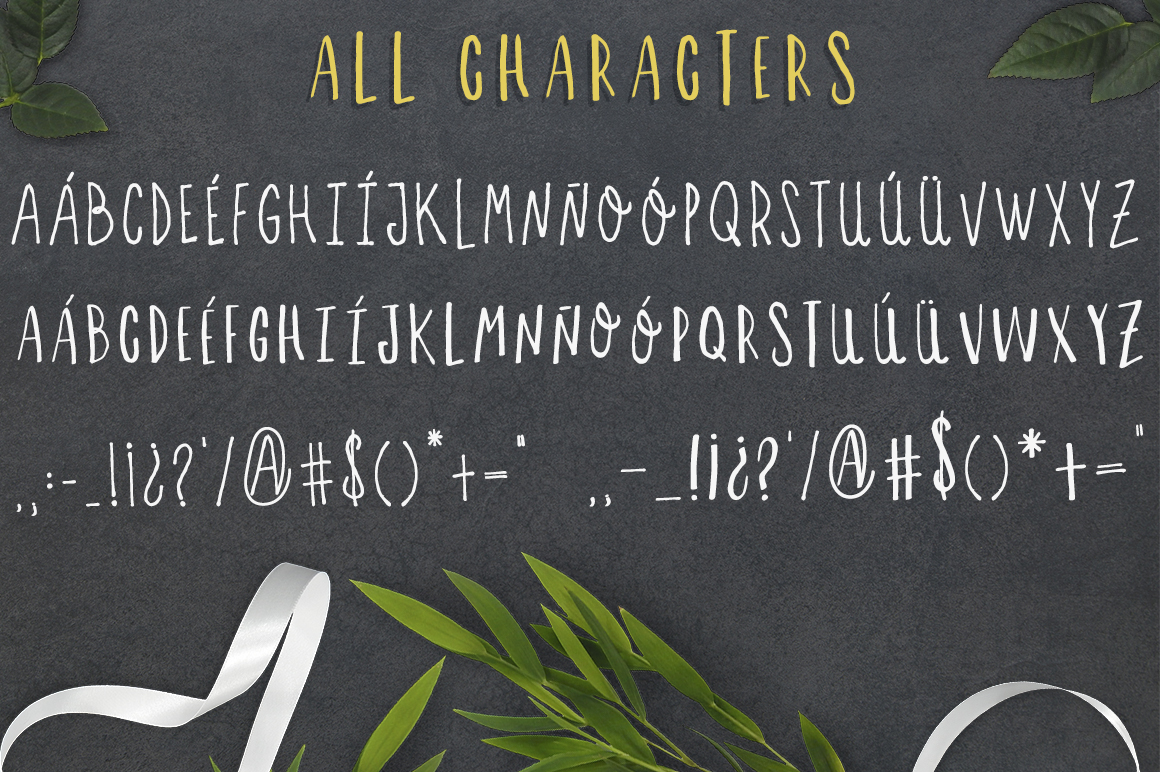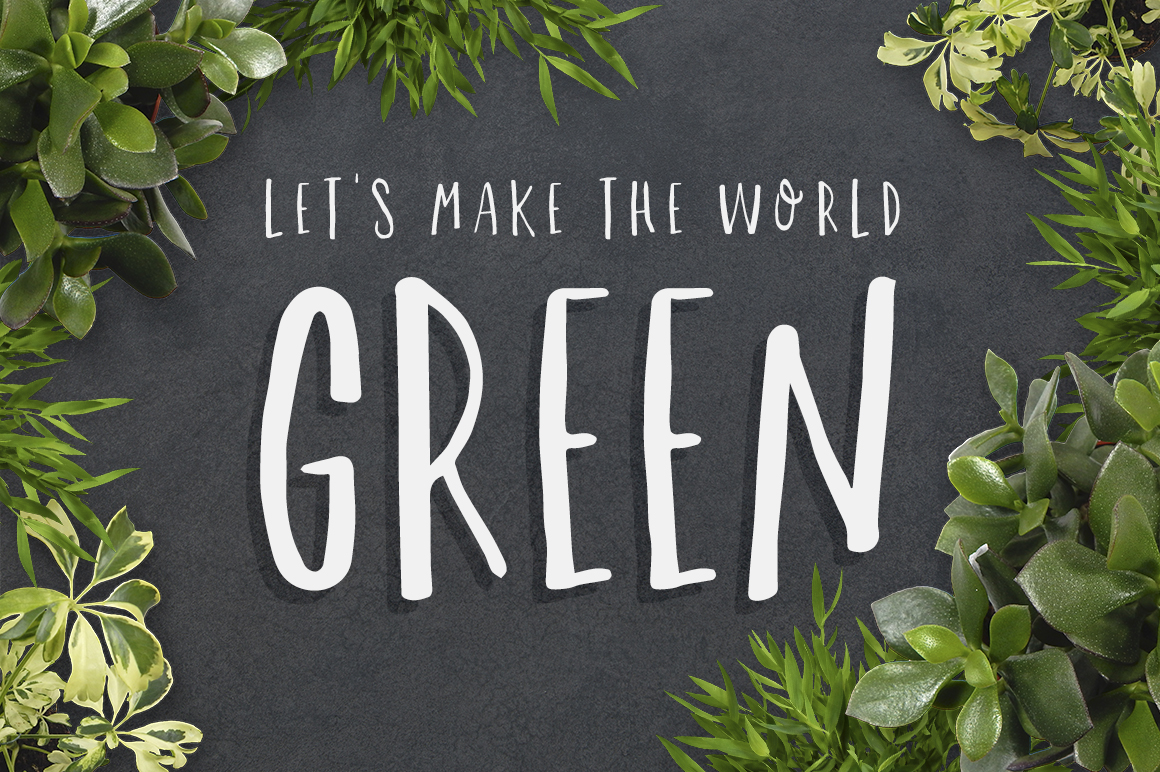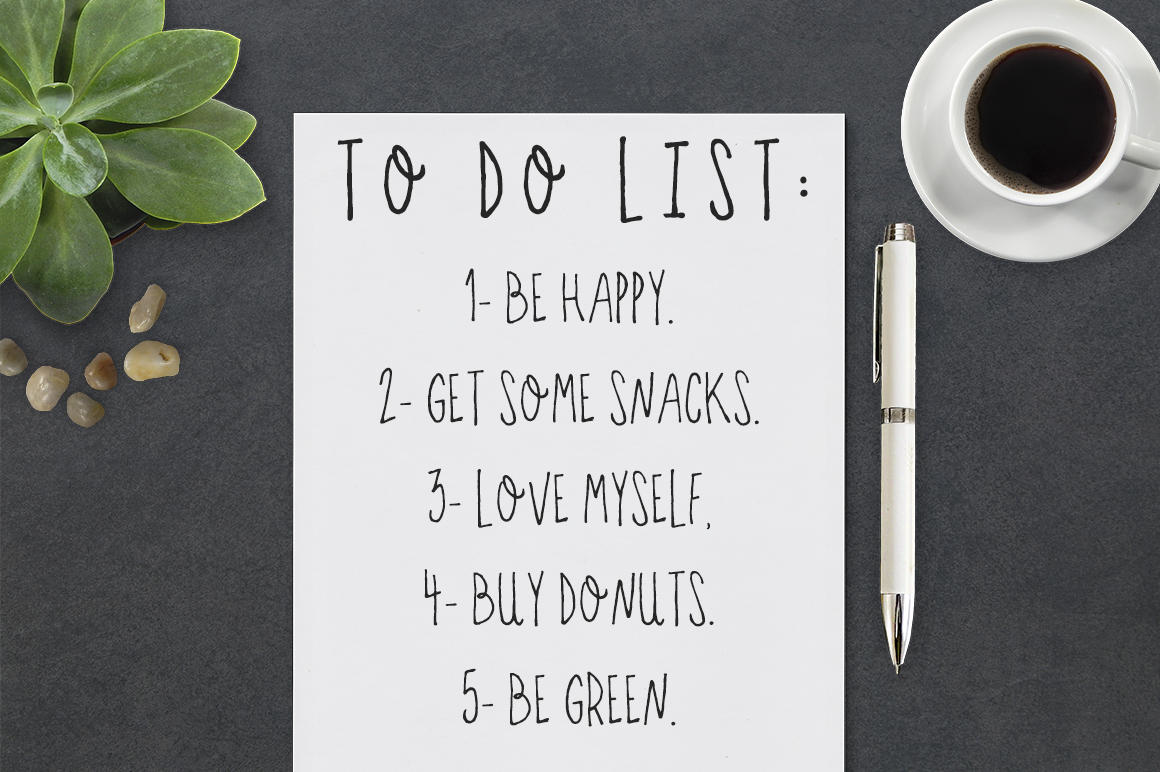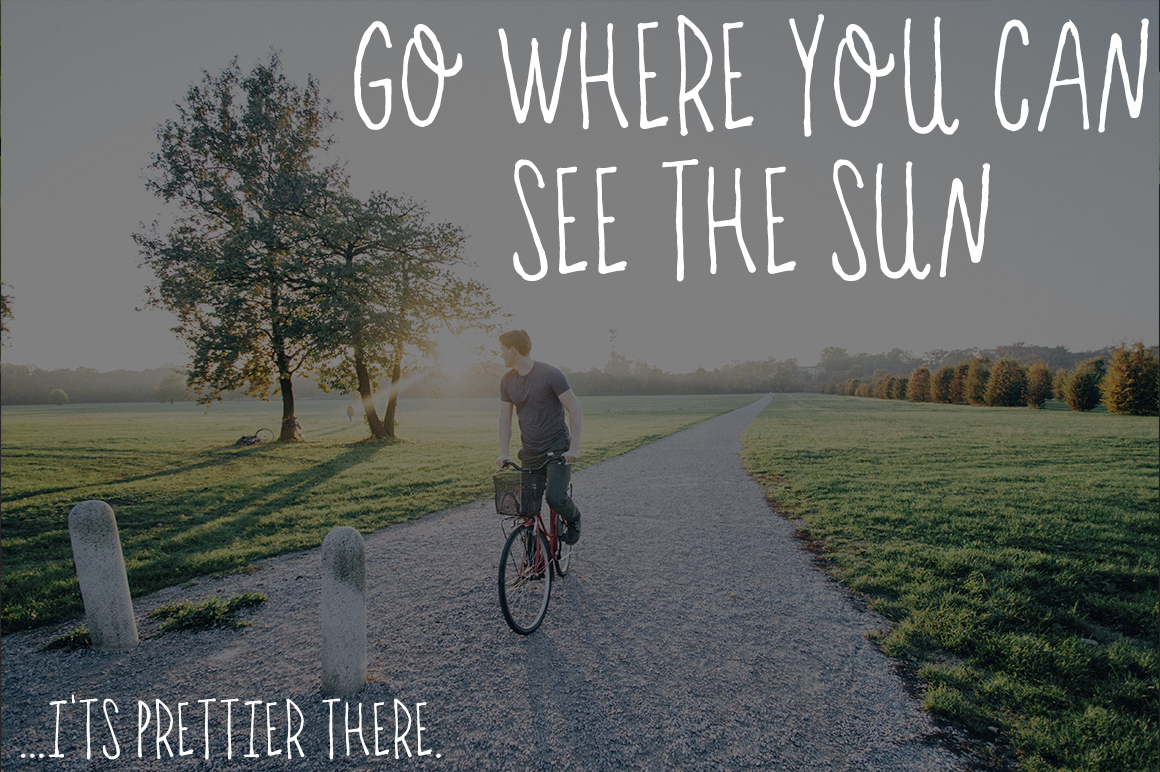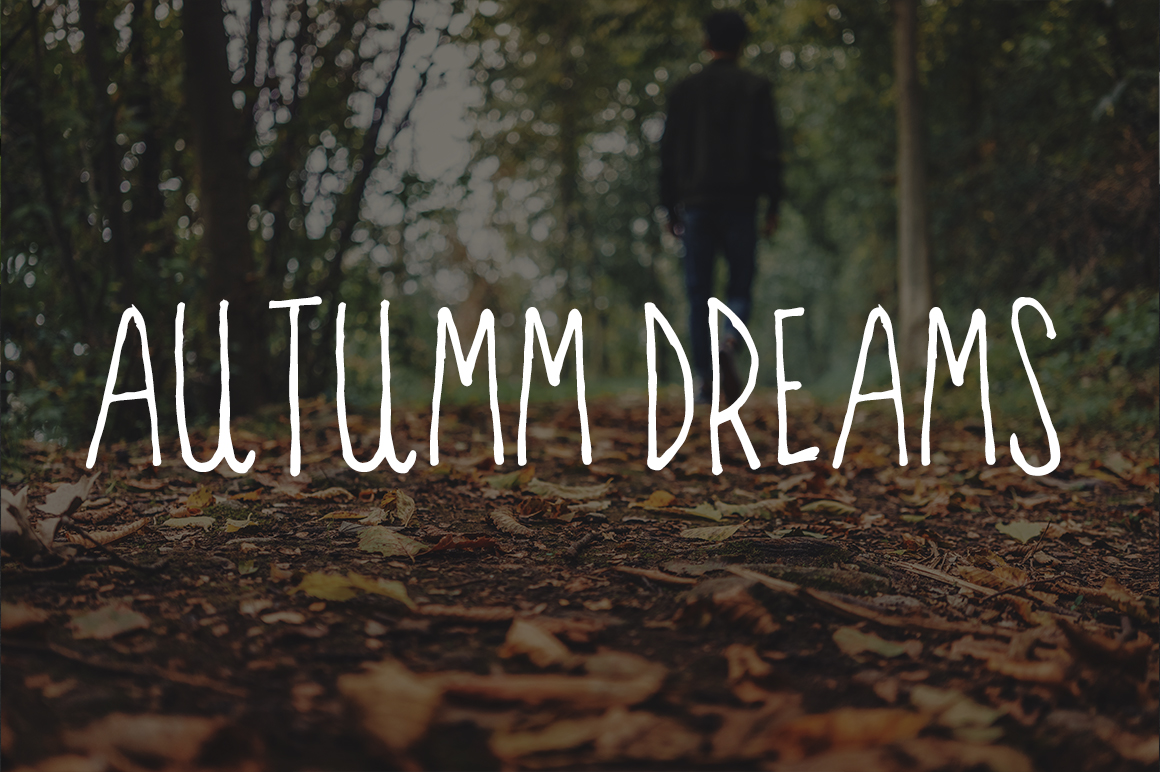
Introduction to Letras Feas Font
Have you ever been working on a creative project and stumbled upon the perfect font that elevates your design to the next level? For designers, finding that one special font can be a game-changer. It’s like discovering a hidden gem that adds a personal touch to your work. Letras Feas Font is one such treasure that has caught our attention, and we’re excited to share its unique charm with you.
This stunning font duo consists of a regular and thin version, offering designers a versatile option to suit their creative needs. With its high-quality design, Letras Feas Font is an excellent addition to any design resource collection. Whether you’re working on a project with a transparent background or need a font that stands out, this font is sure to impress.
Key Features of Letras Feas Font
- High-quality design resource for creative projects, perfect for adding a touch of elegance and sophistication.
- Unique, hand-drawn style with a transparent background, allowing for easy customization and composition.
- Includes a range of lettering styles and fonts, ideal for use in logos, headings, and other design elements.
Honest Review: Letras Feas Font
As a designer, I’m always on the lookout for high-quality design resources that can elevate my creative projects. I recently came across the Letras Feas Font, and I must say, it’s been a game-changer.
- ✨ High-quality design: The font is beautifully crafted, with intricate details that give it a unique and eye-catching look.
- ⚠️ Limited character set: While the font is well-designed, it’s limited to a specific set of characters, which may not be suitable for all design projects.
Overall, I’m thoroughly impressed with the Letras Feas Font. It’s a fantastic resource for designers who need a high-quality, free font with a transparent background. While it may have some limitations, it’s definitely worth considering for your next creative project.
Letras Feas Font is a high-quality design resource perfect for creative projects. This font offers a unique and stylish touch to your work, making it a valuable addition to your design arsenal.
Tips for Getting the Most Out of Letras Feas Font
To get the most out of Letras Feas Font, experiment with different font sizes, colors, and combinations. Use this font to create eye-catching headings and titles that grab attention.
Letras Feas Font is perfect for creative projects such as graphic design, digital art, and typography. Use this font to add a unique touch to your work and stand out from the crowd.